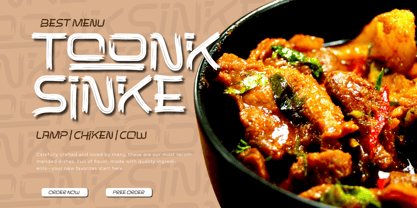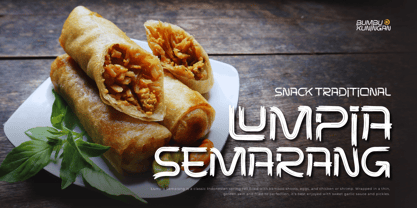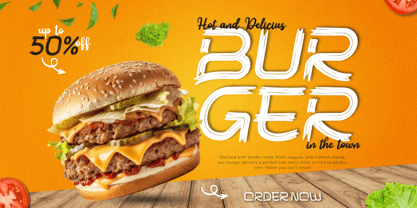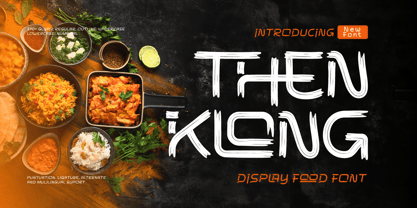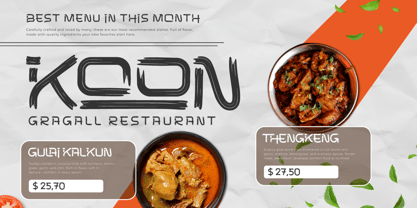
Then Klong
Then Klong is a fun and delicious food display font that brings out the flavors of your design! With its Regular and Slant styles, this font is crafted to make food-themed graphics look tastier, more inviting, and full of personality. Whether you're creating logos for a street food stall, menu boards for a trendy café, or playful packaging for snacks, Then Klong delivers that warm and hearty vibe.
Each letter is drawn with a hand-crafted feel, mimicking the casual charm of handwritten chalkboard signs often found in cozy eateries and food trucks. The Slant version adds a dash of motion and friendliness, perfect for giving your text a mouthwatering twist.
Get ready to spice up your food branding, restaurant menus, cooking blogs, or culinary social media with the irresistible charm of Then Klong.